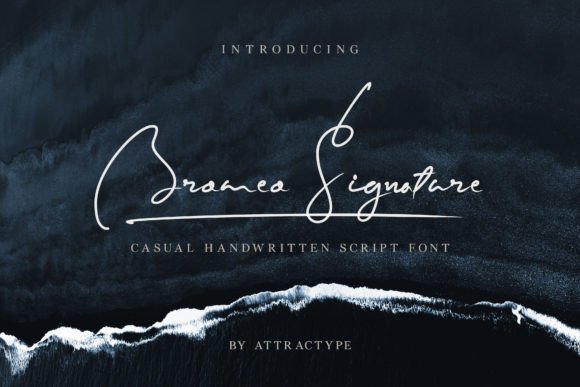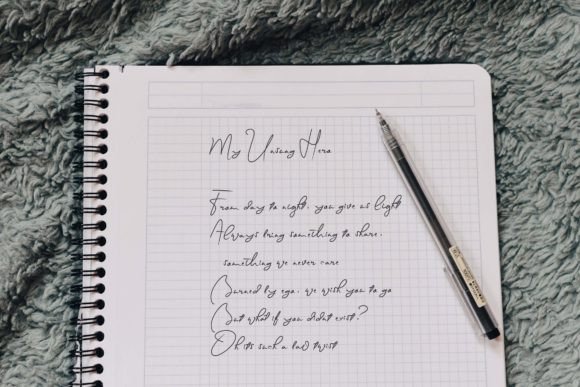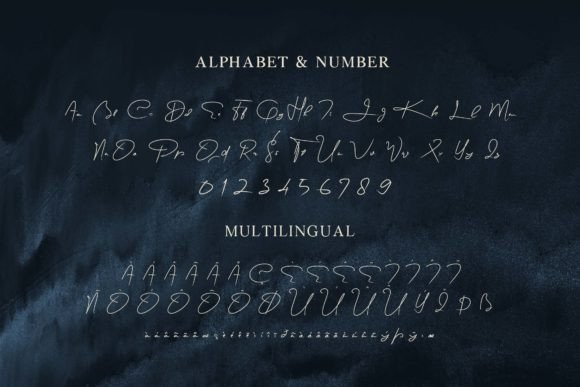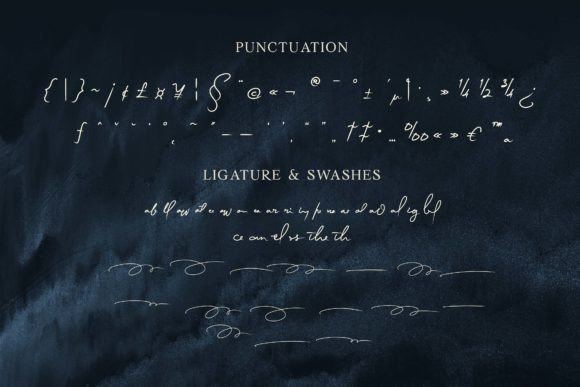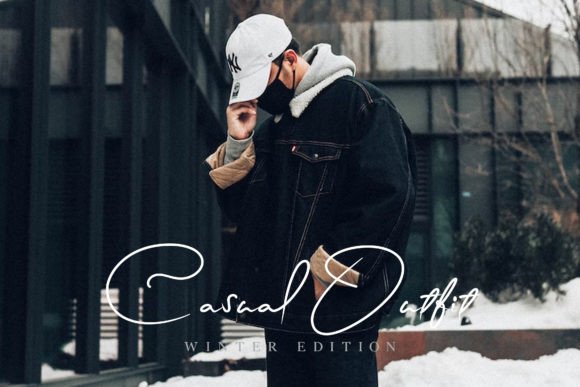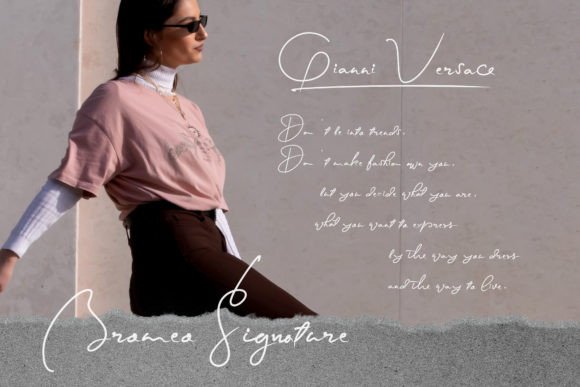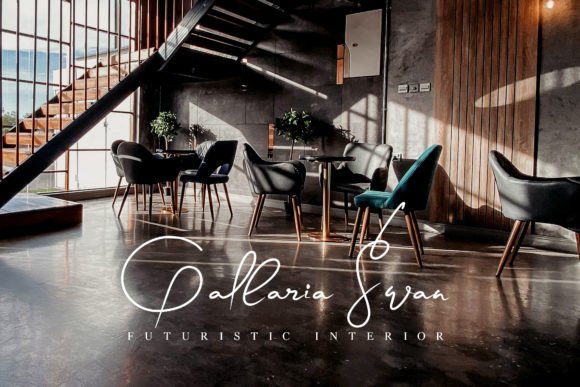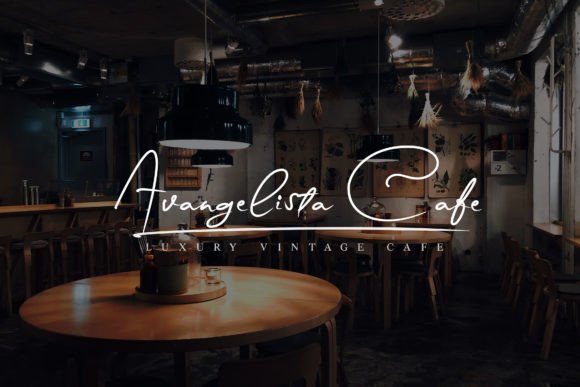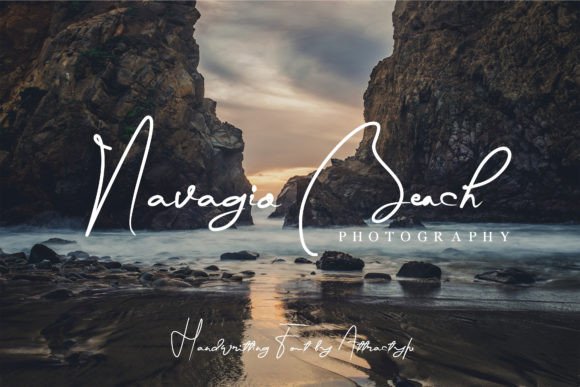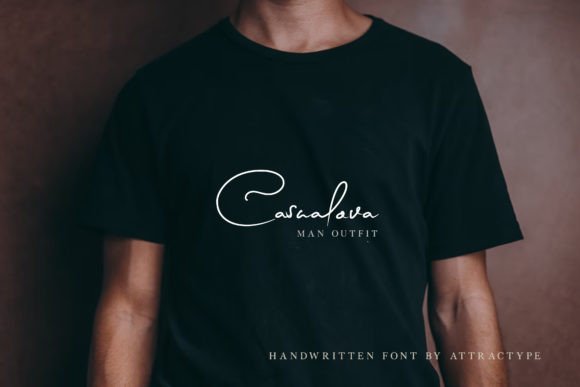
Bromeo Signature Font
Bromeo Signature is a lovely and delicate script font that exudes elegance and class. This font was particularly crafted for those who need a beautiful and refreshing look to their designs.
Bromeo Signature is PUA encoded which means you can access all the glyphs and swashes with ease!